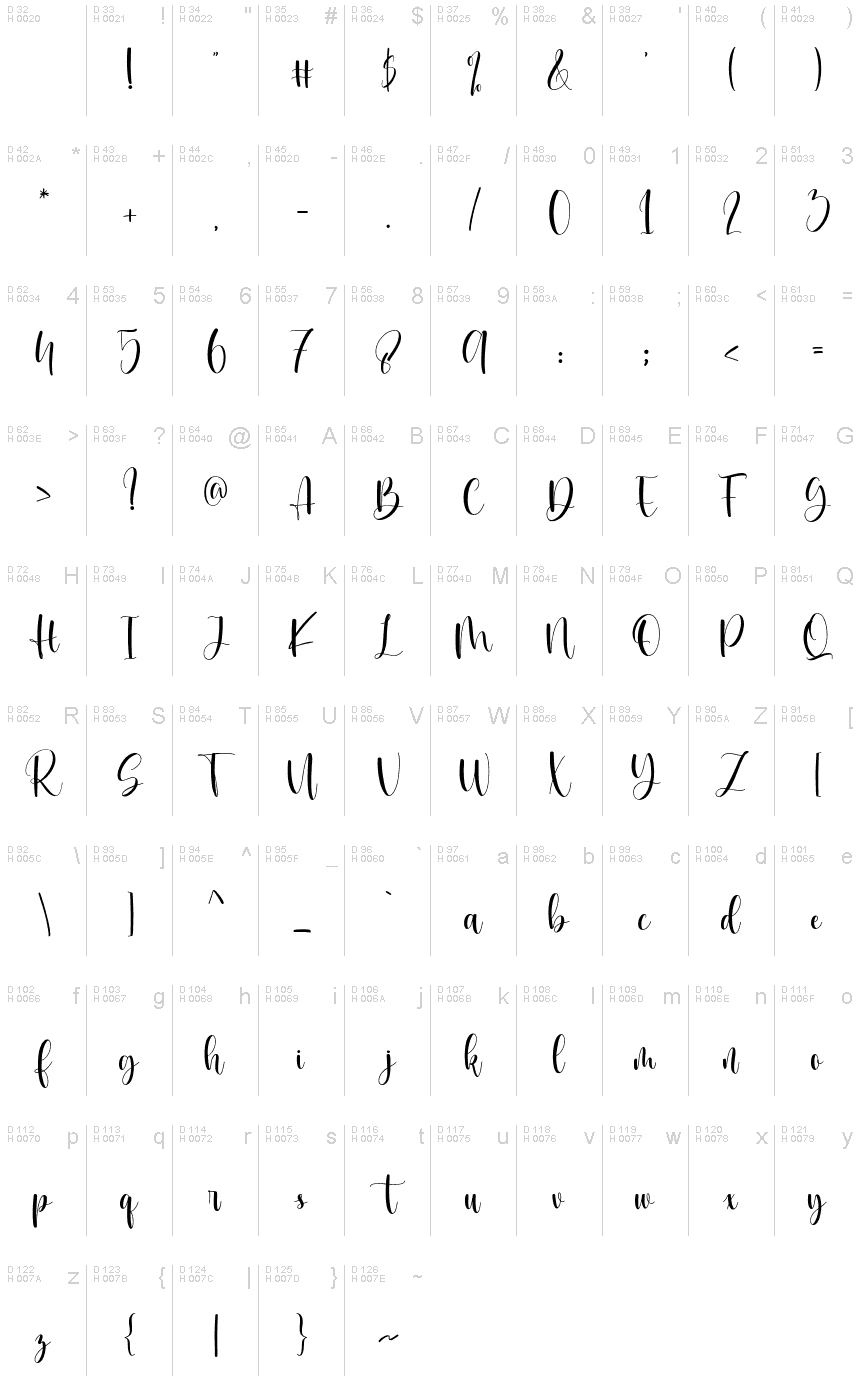
meghan holland
Meghan Holland is a stunning calligraphy font designed by Mozarella.std with a light weight. This versatile font is suitable for a variety of projects, from branding and logos to wedding invitations and posters. Let your creativity shine with Meghan Holland!